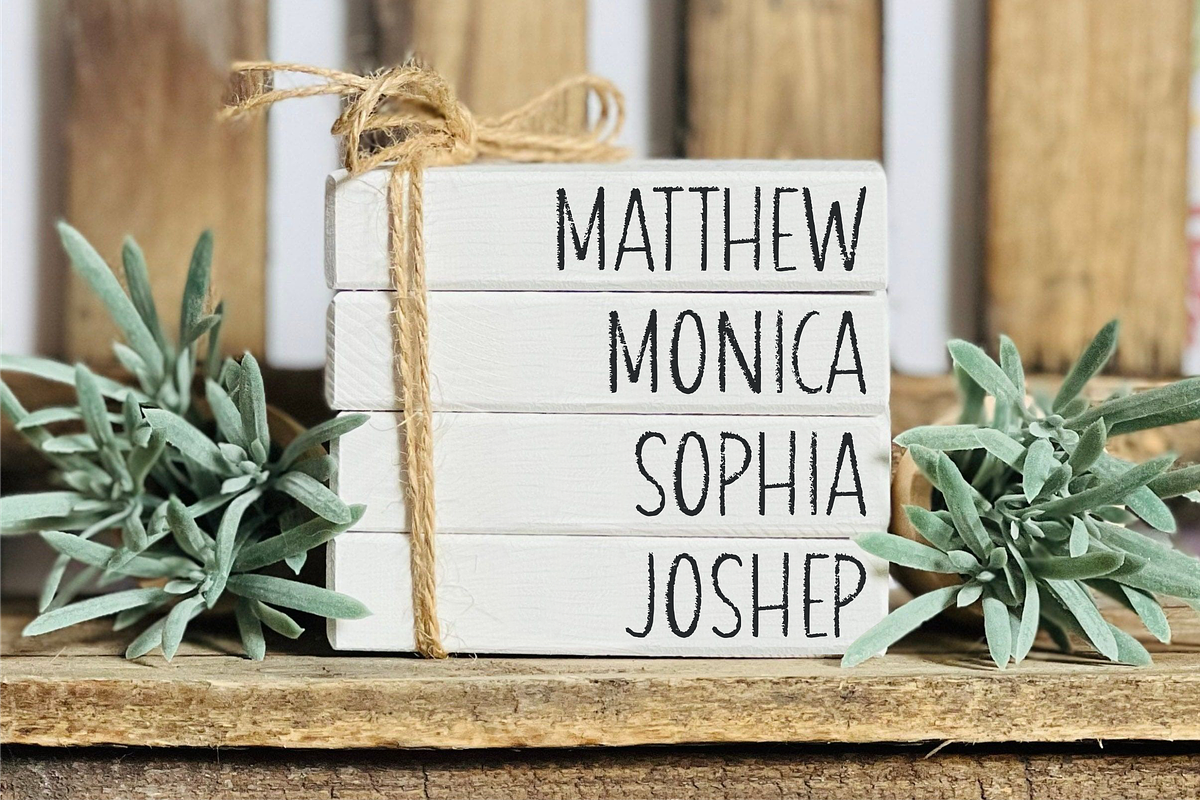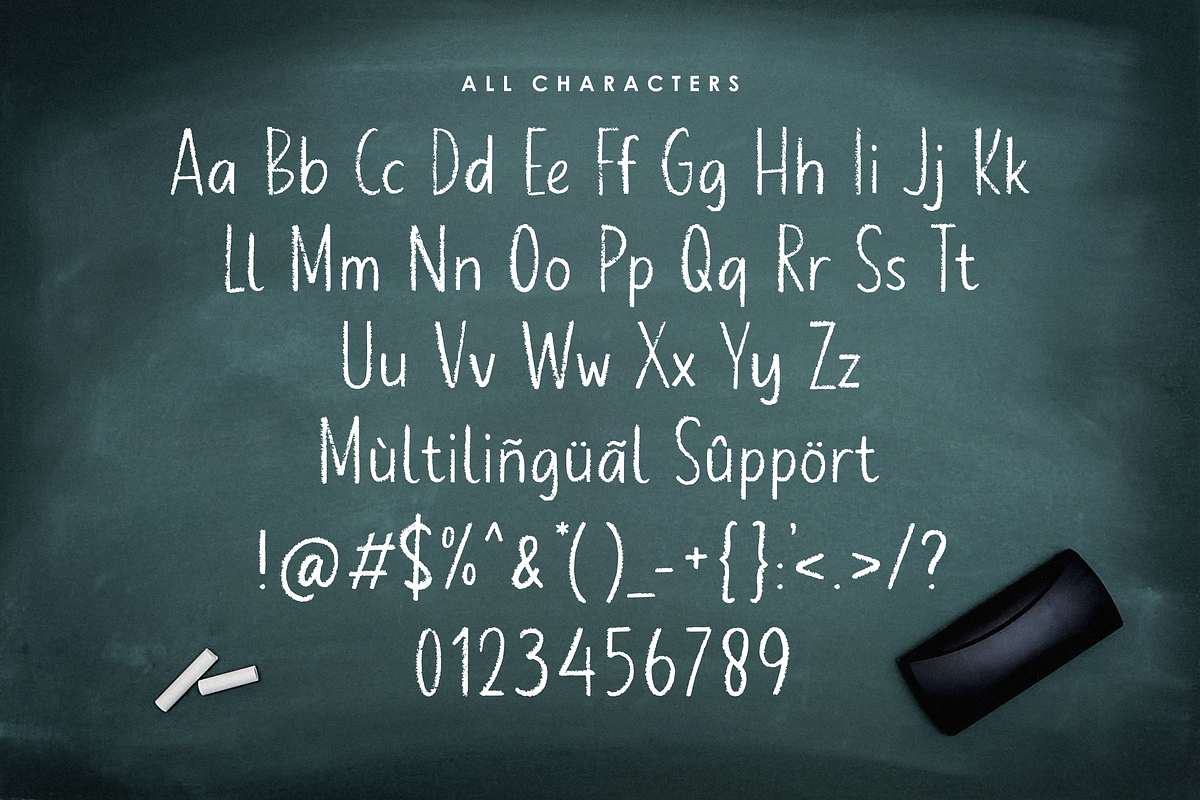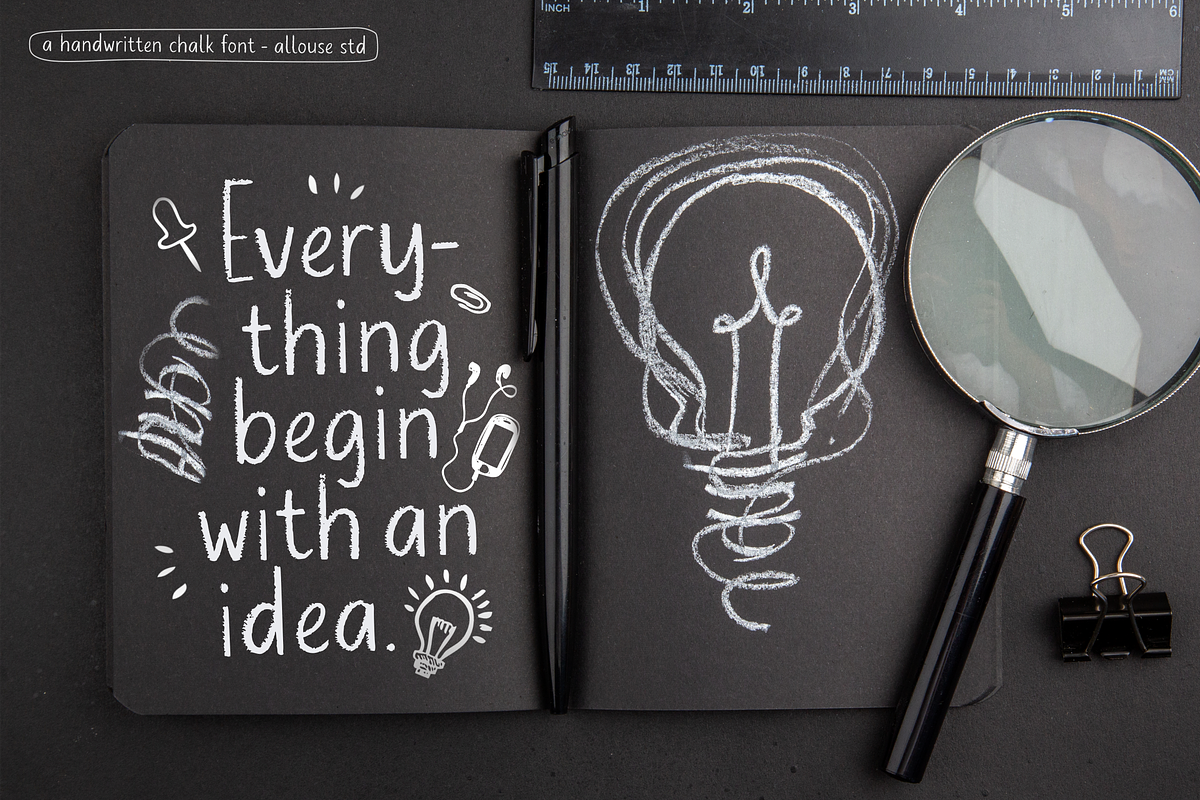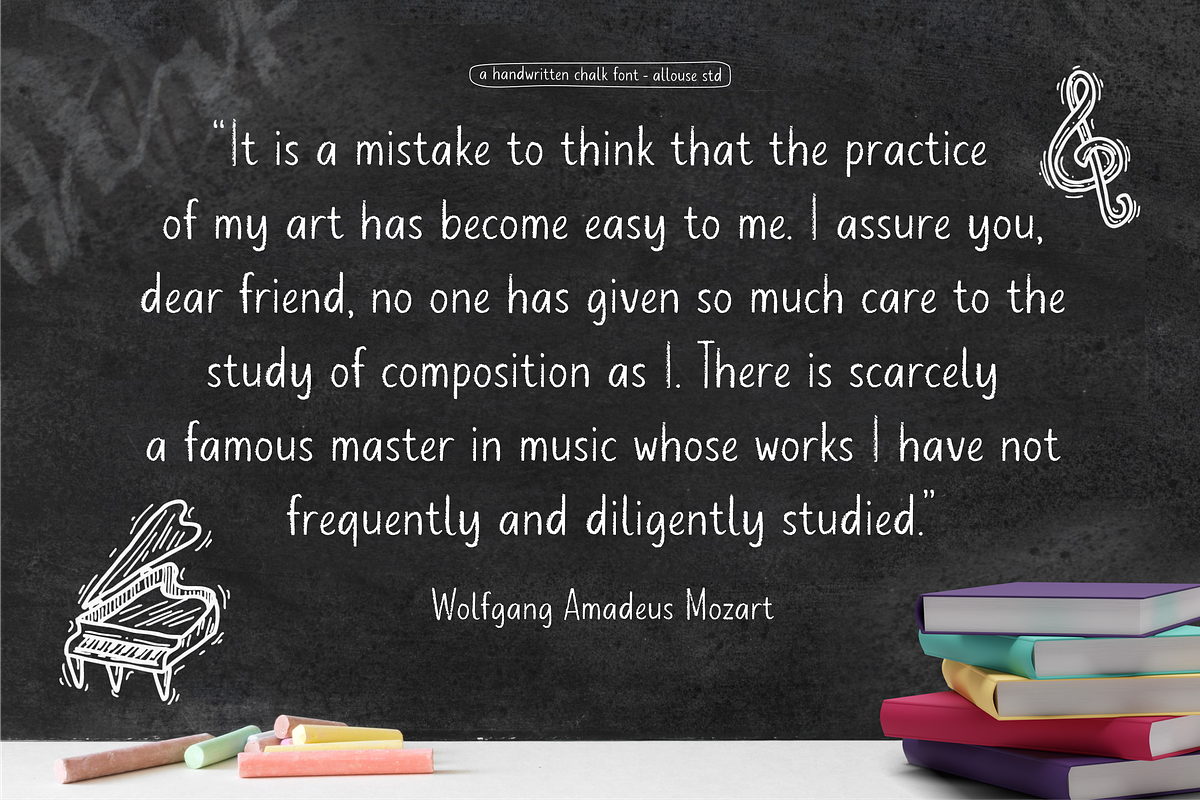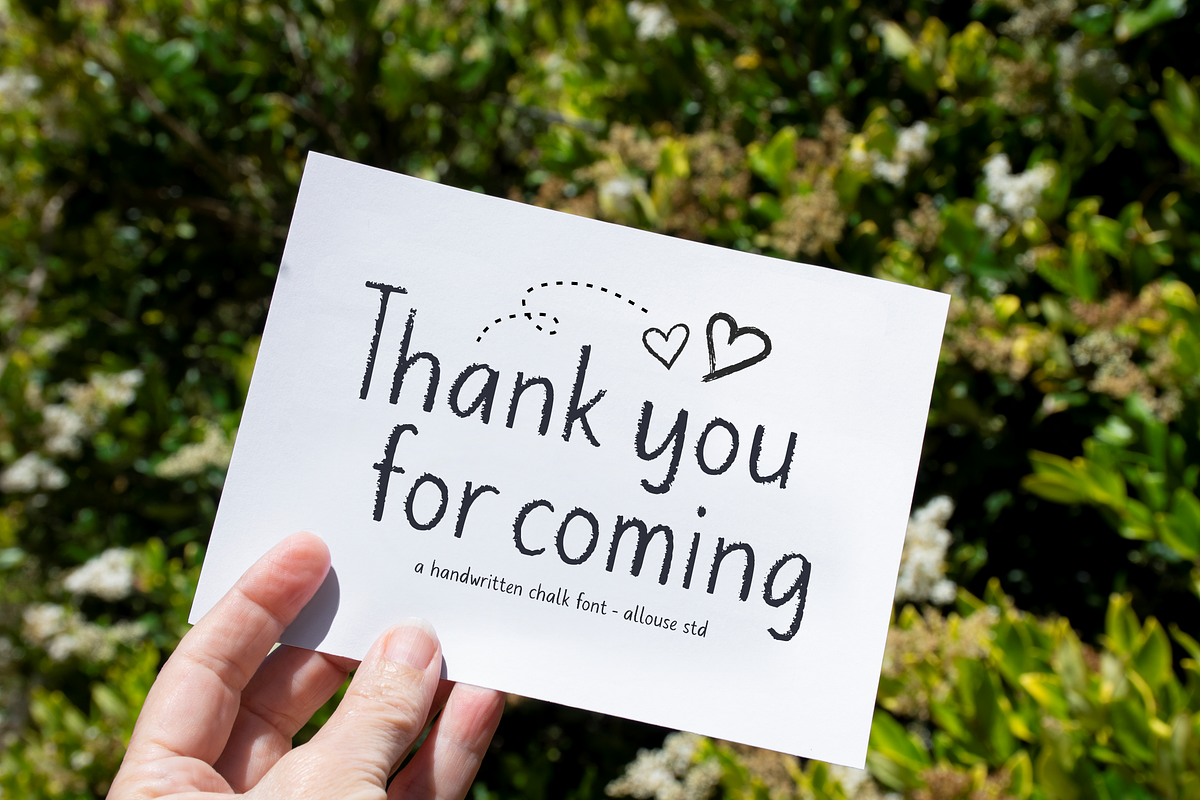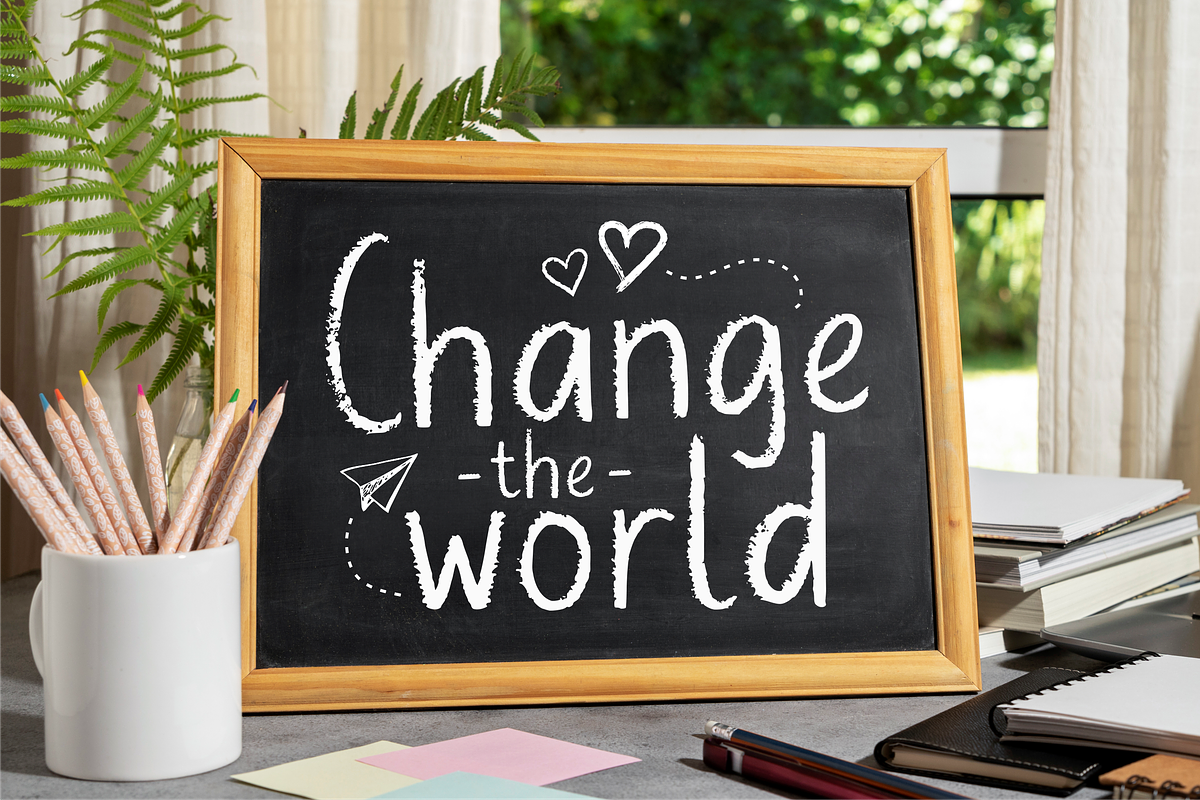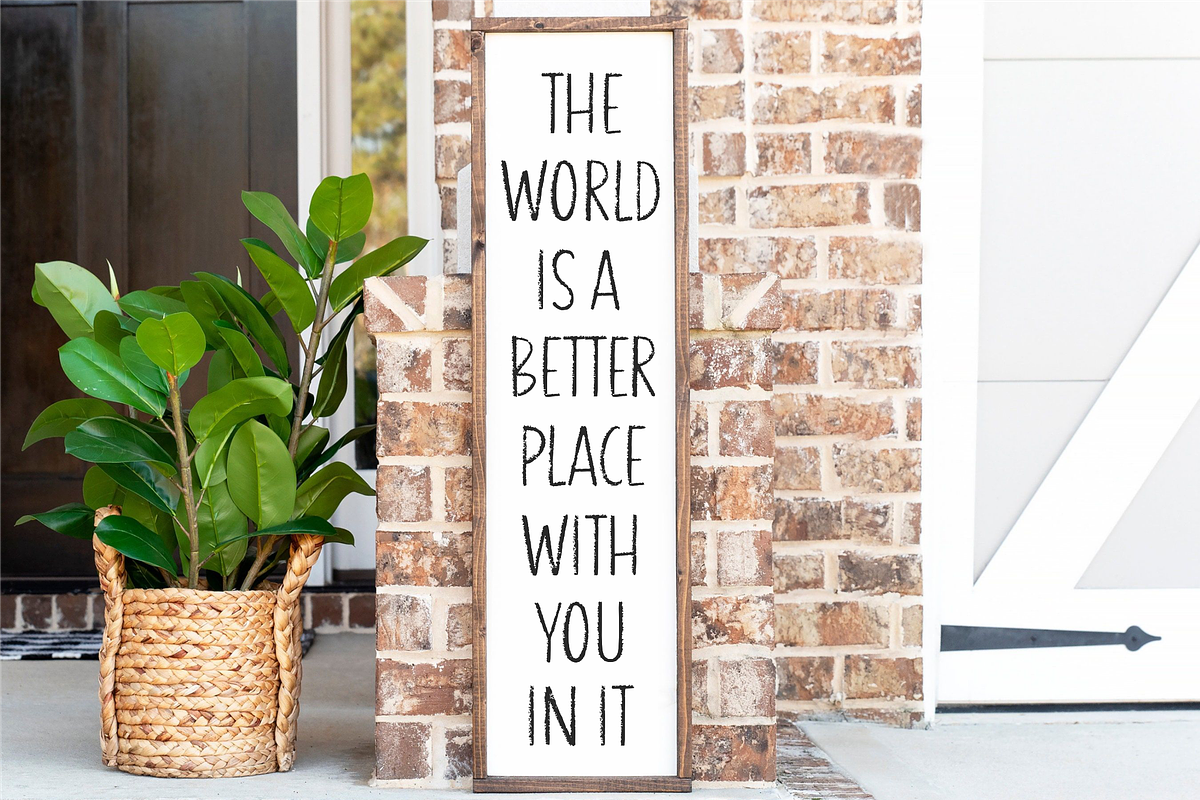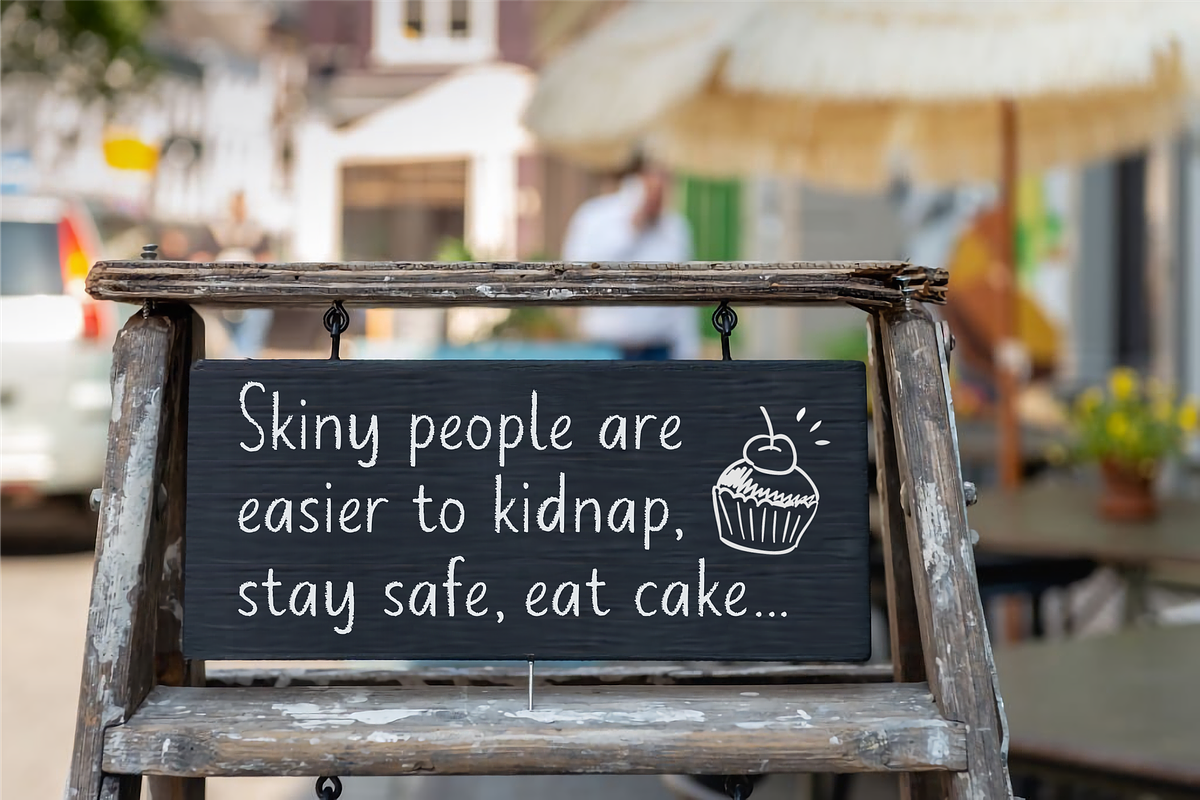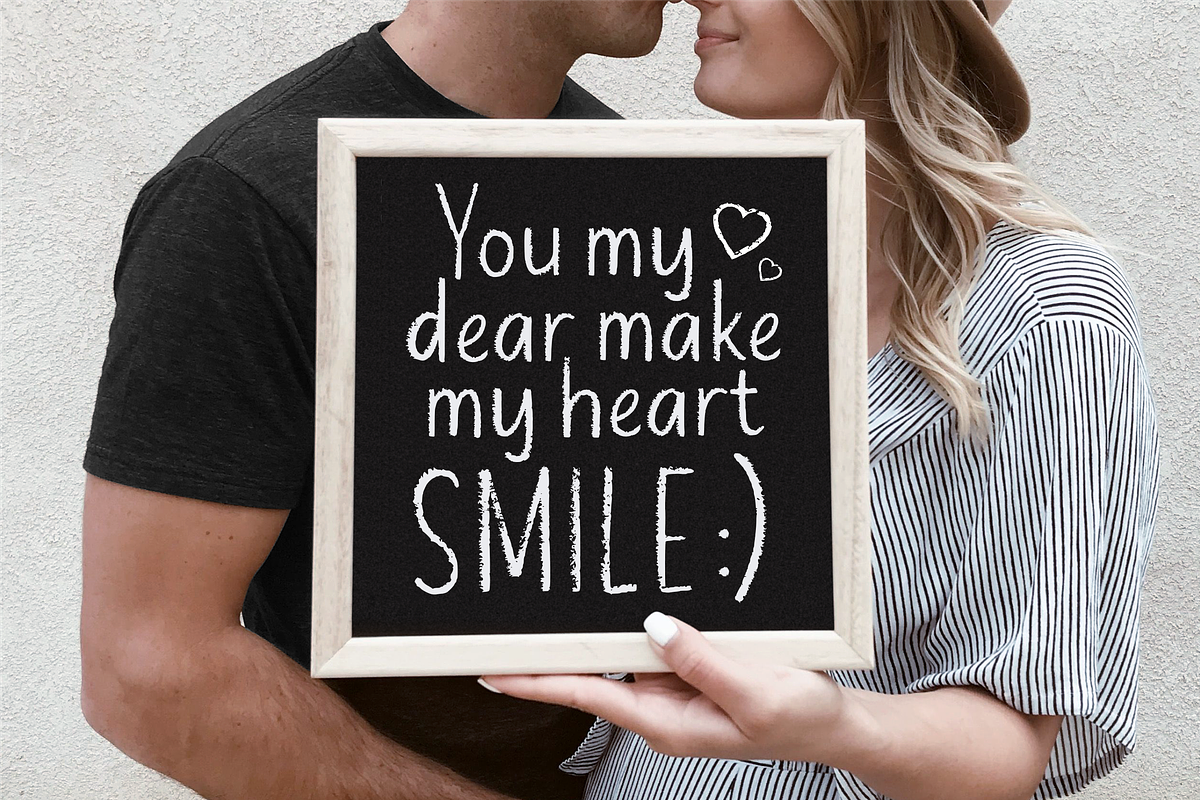
Planet Chalky Handwritten Chalk Font
Proudly Presenting, Planet Chalky A Handwritten Chalk Font.
Planet Chalky is perfect for any titles, logo, product packaging, branding project, megazine, social media, wedding, or just used to express words above the background.
Planet Chalky also come with Multi-Lingual Support.